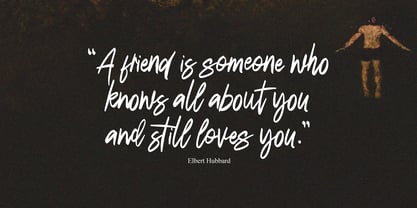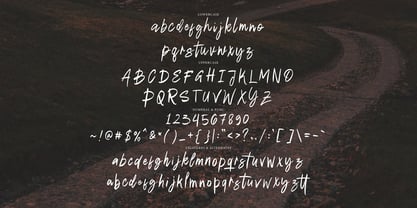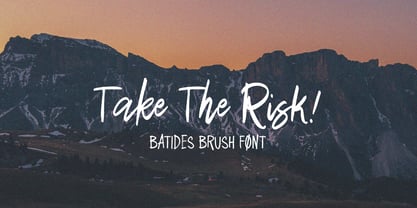
Batides Brush
by Tebaltipis Studio
The Batides Brush Font Family was designed by Dzulka Elfira and published by Tebaltipis Studio. Batides Brush contains 1 styles.
Batides Brush is a typeface with personality. You can use it as a logo, badge, insignia, packaging, headline, poster, etc The alternative characters in this font were divided into several OpenType features such as Stylistic Alternates, Stylistic Sets, and Ligature.